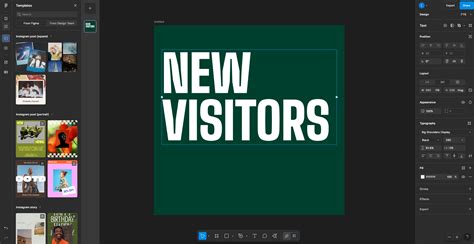
Hey guys! Ever find yourself staring at a design in Figma and thinking, “Man, this font just isn’t hitting the spot”? We’ve all been there, right? Changing fonts is a super common task, whether you’re trying to match a brand’s style guide, experiment with new typography, or just make your text pop a little more. Luckily, Figma makes it pretty straightforward. So, let’s dive into how you can easily swap out fonts and give your designs a fresh new look. We’ll cover everything from finding the right font in Figma’s extensive library to applying it across your project. Get ready to become a typography wizard in no time!
Understanding Figma’s Text Tools
Alright, first things first, let’s get cozy with Figma’s text tools. When you’re working in Figma, you’ll find all your text manipulation goodies right there in the right-hand sidebar , usually under the ‘Text’ section when a text layer is selected. This is your command center for all things font-related. You’ll see options for font family, weight, size, alignment, and a whole bunch of other styling choices. To change the font, you’ll primarily be looking at the font family dropdown . Clicking on this will open up a list of all the fonts available to you in Figma. This includes Google Fonts, your system fonts, and any custom fonts you’ve uploaded. It’s like a giant buffet of typographic options, just waiting for you to pick the perfect one! Understanding this sidebar is key, as it’s where all the magic happens for text styling. Don’t be afraid to click around and explore all the options available. Sometimes the most beautiful designs come from unexpected font pairings, so get experimental!
Finding and Applying New Fonts
So, you’ve got your text layer selected, and you’re ready to switch things up. In the right-hand sidebar , locate the ‘Text’ section. You’ll see a dropdown menu with the current font’s name. Click on it! A search bar will appear, and below it, a list of all available fonts. This is where you can search for specific fonts by name. If you know you want to try out ‘Open Sans’ or ‘Montserrat’, just start typing, and Figma will filter the list for you. Pretty slick, huh? You can also browse through the categories or scroll through the entire list if you’re feeling adventurous. Once you find a font you like, simply click on its name. Boom! Just like that, the font in your selected text layer will change. It’s that simple, guys. But wait, there’s more! You can select multiple text layers at once and apply a font change to all of them simultaneously. Just hold down Shift or Ctrl / Cmd while clicking on the layers, and then make your font selection. This is a massive time-saver for larger projects where you need consistency across many elements. Remember, the goal is to find fonts that are not only aesthetically pleasing but also legible and appropriate for your design’s purpose. Don’t get lost in the sheer volume of options; have a clear idea of the vibe you’re going for.
Using Google Fonts in Figma
Figma has a fantastic integration with Google Fonts , which means you have access to thousands of free, high-quality fonts right within the app. To use them, you don’t need to do anything special if you’re using the desktop app. Figma automatically syncs with your Google Fonts library. If you’re using the browser version, you might need to ensure that the Google Fonts plugin is enabled, or that you’ve installed the desired fonts locally on your system. When you open the font dropdown, you’ll see a section specifically for Google Fonts. You can search for them there, or if you’ve already installed them locally, they’ll appear alongside your system fonts. Choosing Google Fonts is a great strategy because they are designed for web use, offering excellent readability and a wide range of styles and weights. Plus, they’re free and widely supported, so your designs will look consistent across different platforms and devices. It’s a win-win, really. Think about pairing a bold, attention-grabbing font for headings with a clean, readable font for body text. This contrast can really make your content shine and guide the reader’s eye effectively. Experimenting with different font combinations from the Google Fonts library is a great way to elevate your design’s professionalism and appeal. Remember, the right font can completely transform the tone and message of your text.
Installing Custom Fonts
Font Pairing and Hierarchy
Changing fonts isn’t just about picking a pretty typeface; it’s also about creating visual hierarchy and pairing fonts effectively . This is where typography gets really interesting. Think about how you want your users to read your content. You need to guide their eyes. A common technique is to use different fonts for different elements. For instance, you might use a bold, distinctive font for your main headings (H1s) to grab attention, and a simpler, highly readable font for body text (paragraphs) to ensure ease of reading. This contrast creates a clear hierarchy. Font pairing involves choosing two or more fonts that complement each other. A good pairing usually involves contrast – maybe a serif font with a sans-serif font, or a formal font with a more casual one. The key is that they should look good together without clashing. Figma makes it easy to experiment with this. Select a heading text layer, choose a font, then select a paragraph text layer and choose a different, complementary font. You can quickly see how they work together. Don’t be afraid to try different weights and sizes within the same font family too! For example, using a bold weight for a sub-heading and a regular weight for the body text can create hierarchy without needing a completely different font. Good typography guides the user experience, making your interface intuitive and engaging. It’s a subtle art, but mastering it can seriously level up your design game. Pay attention to line height, letter spacing (kerning), and paragraph spacing – these all contribute to the overall readability and aesthetic appeal of your text.
Consistency is Key: Using Styles
Now, imagine you’ve spent ages picking the perfect fonts for your headings, subheadings, and body text, and you’ve applied them meticulously throughout your design. What happens when you need to make a change? You’d have to go back and update every single instance , right? Nightmare fuel! That’s where Figma Styles come to the rescue. Styles are a way to save and reuse your text formatting. Once you’ve styled a text layer the way you want (font, size, weight, color, line height, etc.), you can save it as a Text Style. To do this, select your styled text layer, and in the right-hand sidebar, click the four-dot icon next to the ‘Text’ section. Then, click the + button and choose ‘Create style’. Give your style a clear name, like “Heading 1”, “Body Text”, or “Button Label”. Now, whenever you need to apply that specific formatting, you just select the text layer, go to the Styles panel (the same four-dot icon), and click on your saved style. If you ever need to update the style – maybe change the font family or size – you just edit the master style, and all elements using that style will update automatically. How cool is that?! Using Text Styles ensures consistency across your entire project, saving you tons of time and preventing those annoying little inconsistencies that can make a design look unprofessional. It’s a foundational practice for efficient and scalable design work, guys. Seriously, start using styles from day one!
Conclusion: Mastering Your Typography
So there you have it, guys! Changing fonts in Figma is a fundamental skill that can dramatically impact your design’s look and feel. We’ve covered how to find and apply fonts directly from the sidebar, explored the vast world of Google Fonts, learned how to bring in your own custom typefaces, and touched upon the crucial concepts of font pairing and hierarchy. Most importantly, we’ve highlighted the power of using Text Styles to maintain consistency and efficiency in your workflow. Remember, typography is more than just picking a font; it’s about communicating effectively and creating a positive user experience. Don’t be afraid to experiment . Play around with different fonts, test various pairings, and always consider readability and the overall message you want to convey. By mastering these techniques, you’ll be well on your way to creating designs that are not only visually stunning but also highly functional and professional. Keep practicing, keep designing, and happy font hunting!